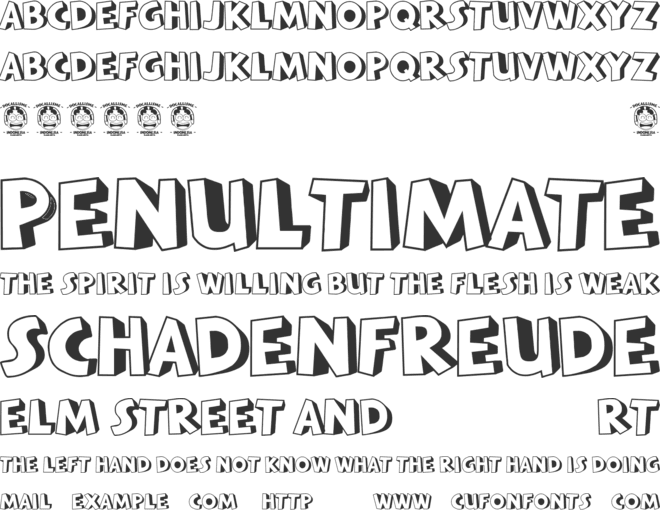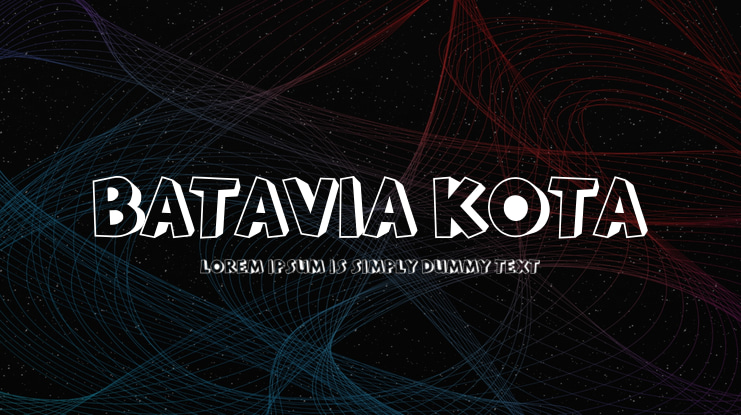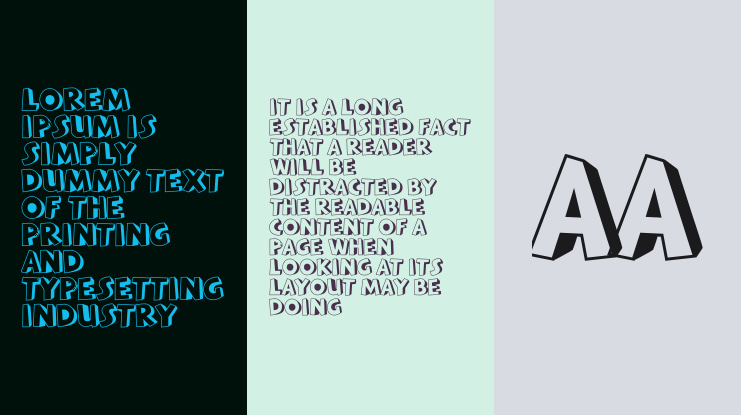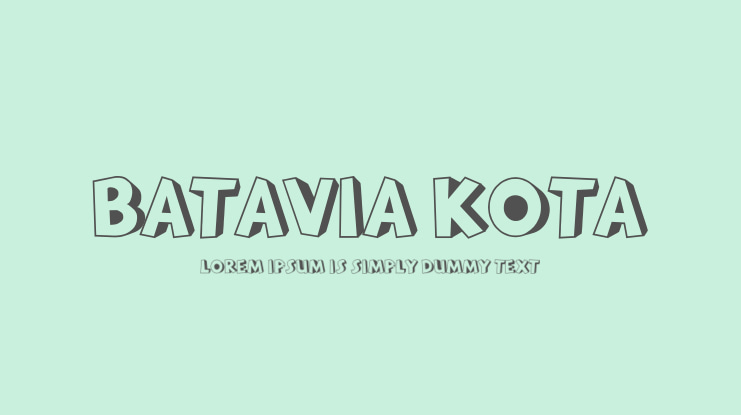
BATAVIA KOTA Font
Batavia Kota is a whimsical, hand-crafted and outlined display font. It is perfect for child related projects, cute quotes and so much more.